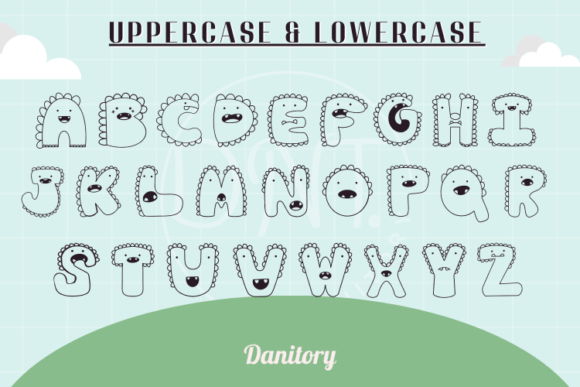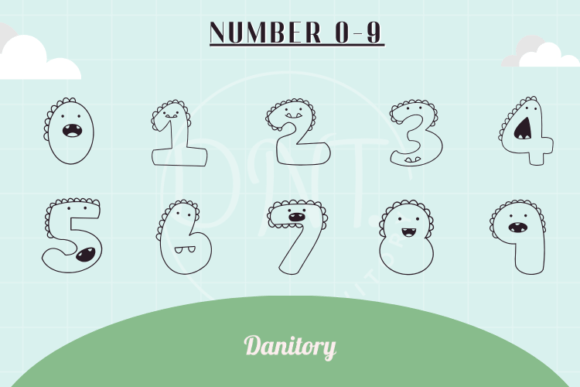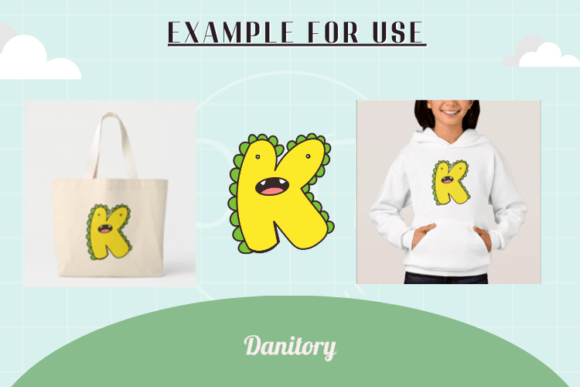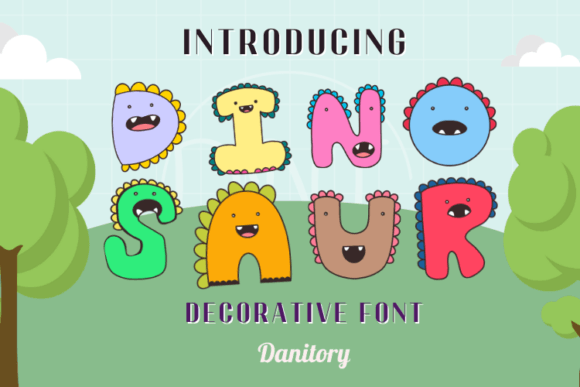
Dinosaur Font: Unleashing Childlike Wonder in Your Designs
Are you looking for a typeface that can add a dash of playfulness and whimsy to your designs? Look no further than the Dinosaur Font! This cheerful and lively font is perfect for designers and crafters who want to bring a childlike innocence and joy to their work. In this article, we’ll explore the features and benefits of the Dinosaur Font, and how it can elevate your designs to the next level.
The Playful Personality of Dinosaur Font
The Dinosaur Font is designed to evoke a sense of friendly smiles and approachable warmth. The letters are shaped like smiling faces, adding a playful and celebratory tone to any design. Whether you’re creating invitations, greeting cards, or packaging, this font is sure to bring a smile to your audience’s faces. The Dinosaur Font is perfect for conveying joy, excitement, and happiness in any design project.
Key Features of Dinosaur Font
• Childlike innocence: The Dinosaur Font is designed to evoke a sense of wonder and curiosity, making it perfect for designs that require a playful and youthful touch.
• Whimsical design: The letters are shaped like friendly smiles, adding a touch of whimsy and playfulness to any design.
• Celebratory tone: The font is perfect for creating invitations, greeting cards, and packaging that require a celebratory and festive tone.
• Versatile: The Dinosaur Font can be used in a variety of design projects, from digital designs to print materials.
The Dinosaur Font is a versatile typeface that can be used by designers and crafters alike. Whether you’re creating digital designs, print materials, or handmade crafts, this font is sure to add a touch of playfulness and whimsy to your work. Here are some ideas for using the Dinosaur Font:
• Invitations: Use the Dinosaur Font to create playful and celebratory invitations for birthdays, parties, and special events.
• Greeting cards: Add a touch of whimsy to your greeting cards with the Dinosaur Font, perfect for congratulations, get well, and thank you cards.
• Packaging: Use the Dinosaur Font to add a playful touch to your packaging, making it perfect for kids’ products, toys, and treats.
• Digital designs: Use the Dinosaur Font in your digital designs, such as social media graphics, blog posts, and website headers.
Tips for Using Dinosaur Font
Here are some tips for getting the most out of the Dinosaur Font:
• Pair with bold colors: The Dinosaur Font looks great paired with bold and bright colors, adding to its playful and celebratory tone.
• Experiment with sizes: Try using the Dinosaur Font in different sizes to create visual interest and hierarchy in your designs.
• Add illustrations: The Dinosaur Font pairs well with illustrations, especially those with a playful and whimsical theme.
The Dinosaur Font is a cheerful and lively typeface that brings a childlike innocence and whimsy to any design. With its playful personality, versatile design, and celebratory tone, it’s perfect for designers and crafters who want to add a touch of joy and excitement to their work. Whether you’re creating invitations, greeting cards, packaging, or digital designs, the Dinosaur Font is sure to bring a smile to your audience’s faces. So why not give it a try and unleash your inner child in your designs?